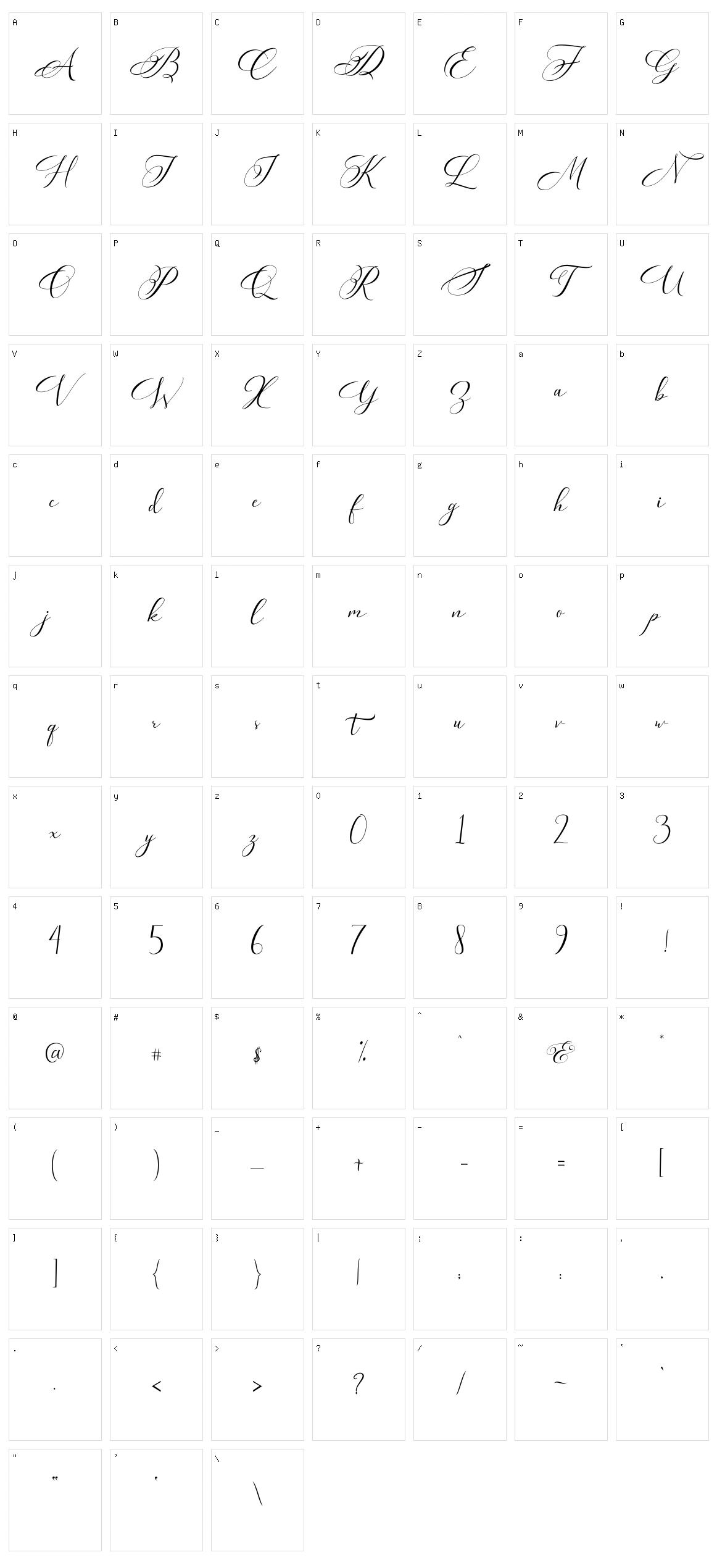
The free font Dellima is carefully designed by YonType Studio, showcasing a thoughtful balance of creativity and usability and falls under the Script font style. When you download the ZIP file, it contains only 28.33 KB of font files, making it lightweight and quick to download. Please review the license details below to understand permitted usage and distribution rights. If license information is not available, we recommend using this font for personal projects only or contacting the author directly for commercial usage permissions.